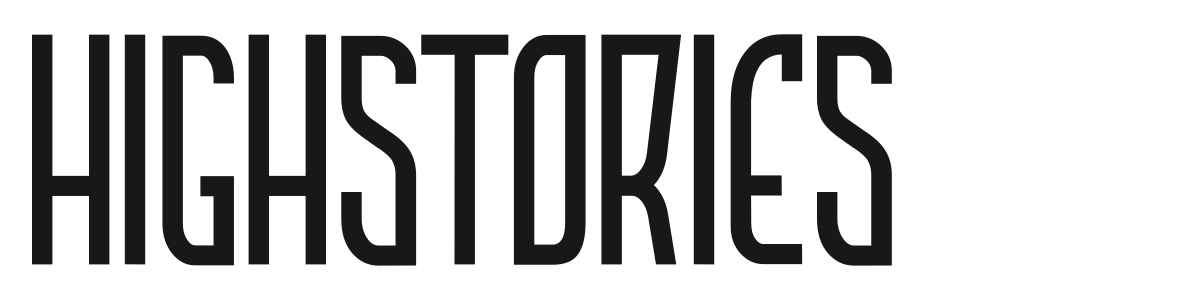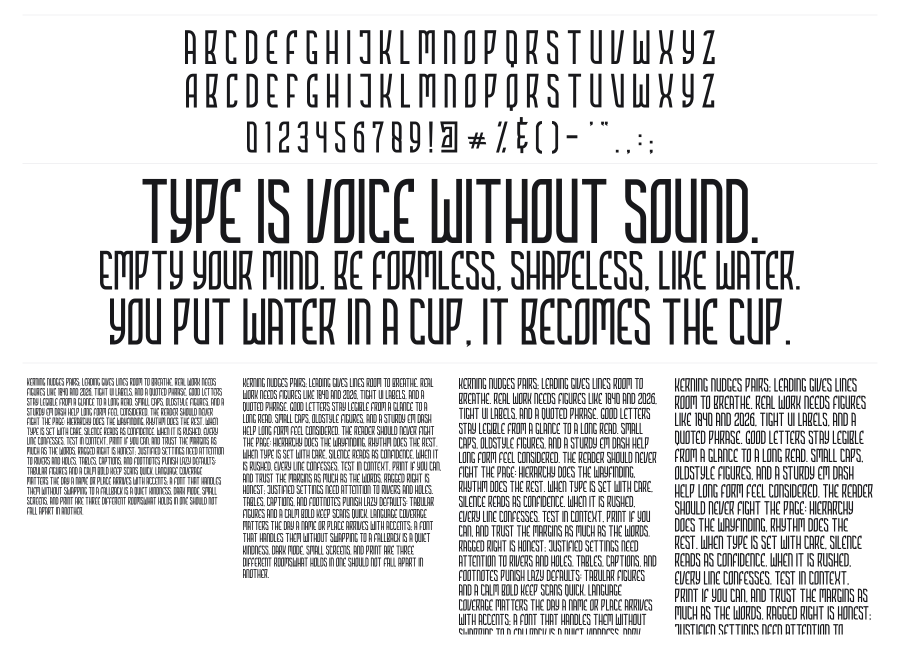
Highstories
Highstories is a heavily condensed geometric display face with strong Art Deco bones and a vintage poster sensibility. The characters are built on tight vertical structures with flat terminals and compressed counters, giving it a dense, graphic intensity at large sizes. It suits headline work, logotypes, and packaging where a bold retro authority is needed.